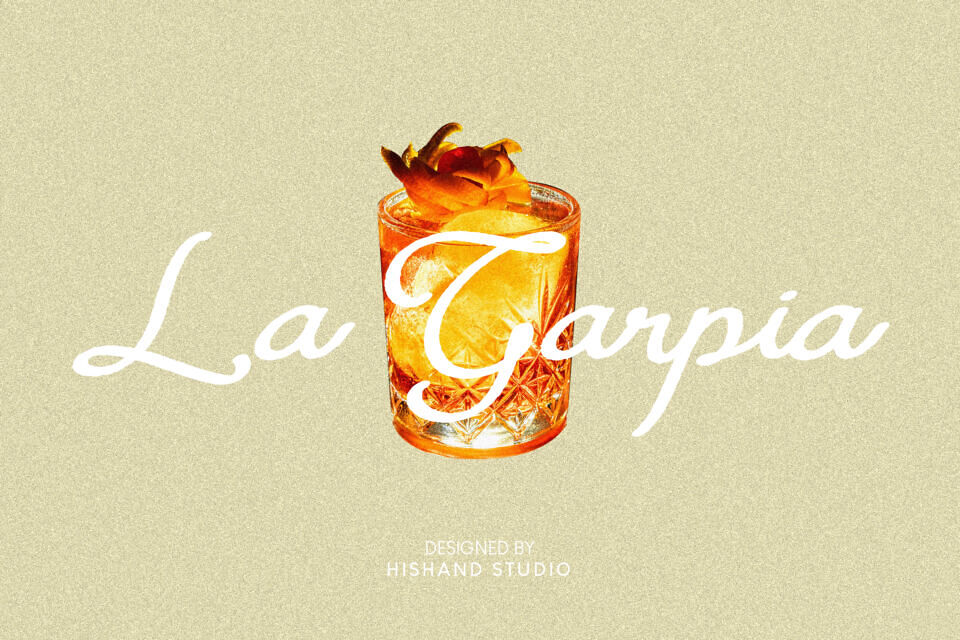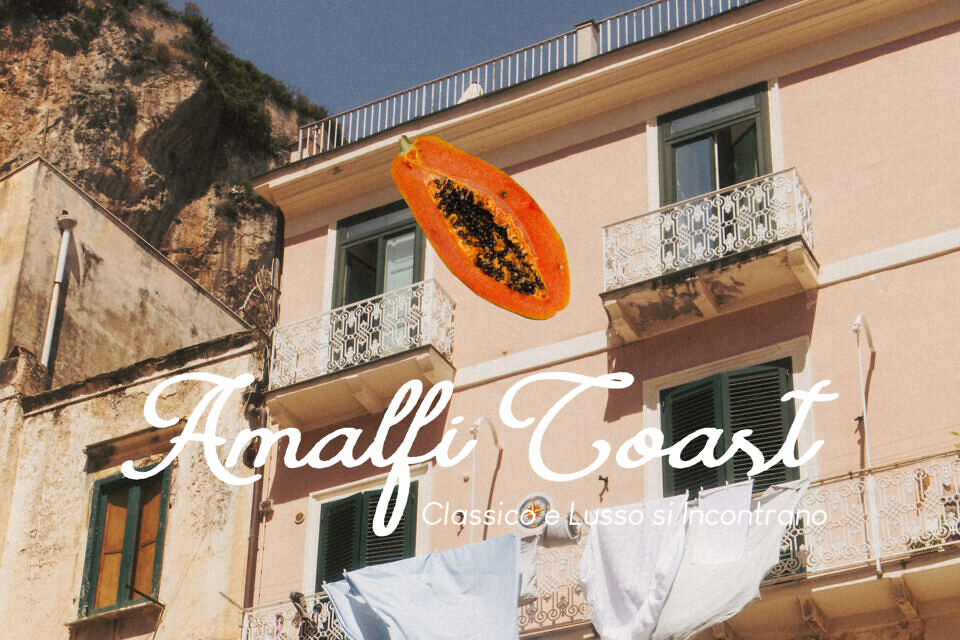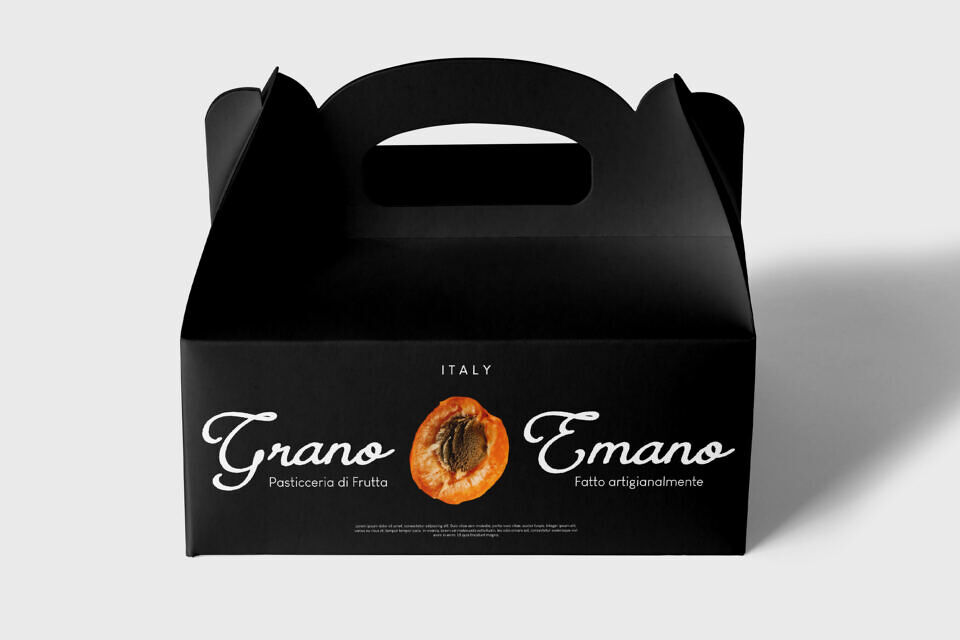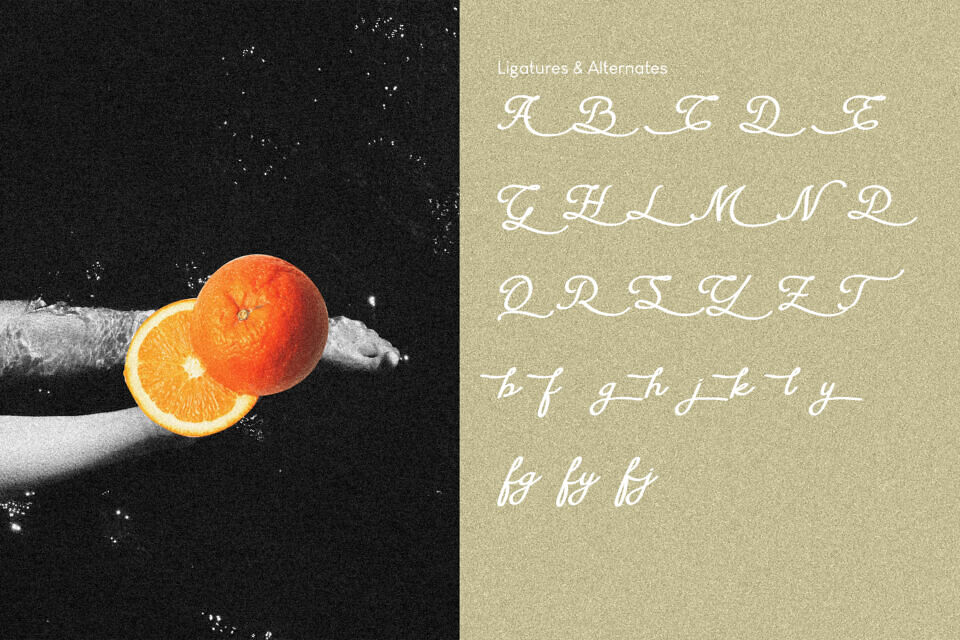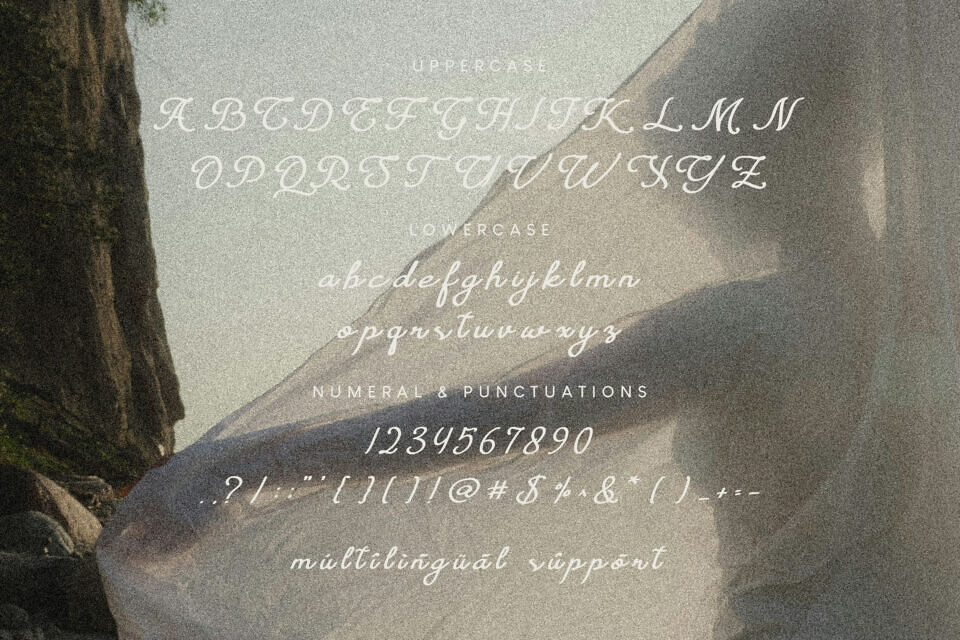
La Garpia Font
La Garpia is a graceful handwritten script font that blends natural flow with refined elegance. Designed with balanced curves and smooth strokes, it captures the charm of organic handwriting while maintaining professional polish. Each letter connects seamlessly, ensuring readability and visual harmony across titles, logos, packaging, and digital media.
With ligatures, alternates, and multilingual support, La Garpia offers creative flexibility for global design projects. Its timeless character adds warmth and sophistication, making it ideal for branding, stationery, and modern or classic layouts that need an authentic, human touch.